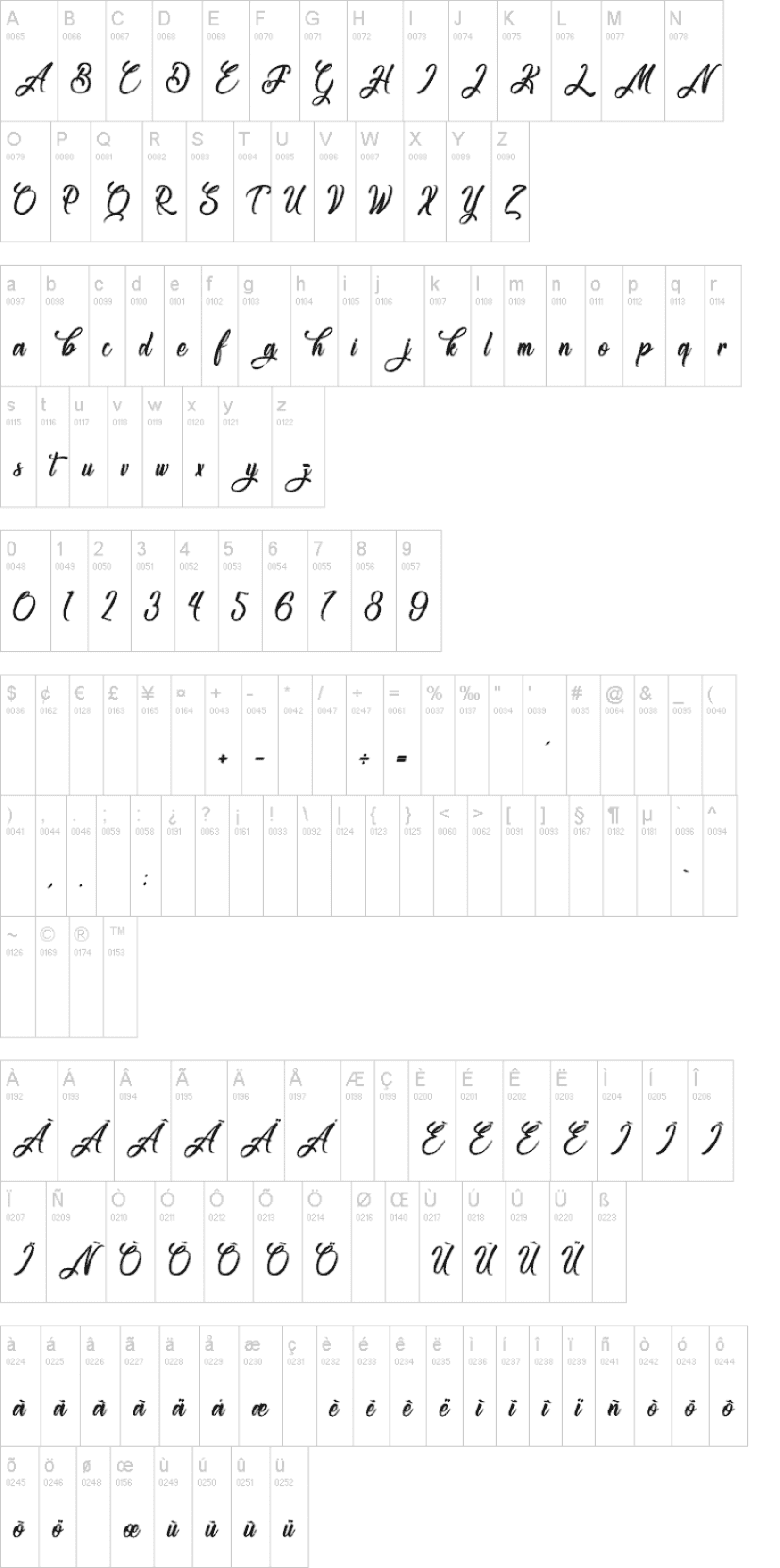
Congratulations, the Folding by Octotype is a great looking calligraphy font that is particularly best for personal use which can be downloaded for free for installing on personal computers only. These extra letters are included in the free version of the app and also have letters in uppercase as well as special characters for added customize.